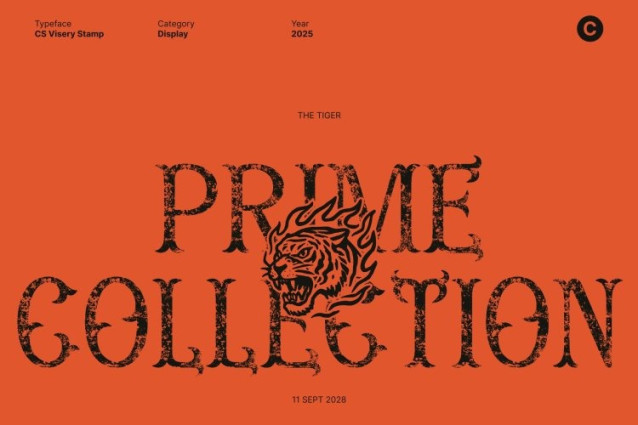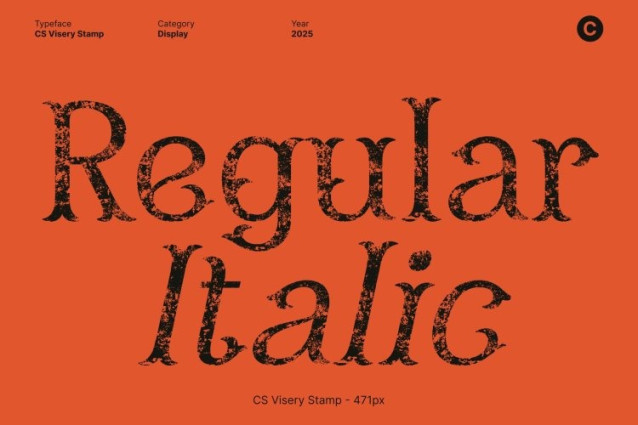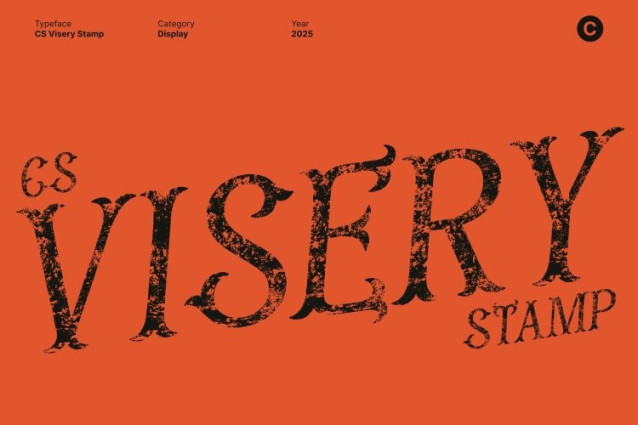
CS Visery Stamp Font
CS Visery Stamp Font This is a distinctive display serif font inspired by a rich blend of vintage Mexican design and classic Tuscan serif traditions. Its ornamental strokes, curved terminals, and decorative letterforms celebrate the intricate artistry found in traditional Mexican motifs.
Traditional Shapes with Decorative Flair
The core of this font lies in its expressive and detailed structure. Each character is crafted with ornamental curves and split-serif Tuscan forms that instantly convey a sense of craftsmanship. These decorative elements add warmth and personality, making the font perfect for display use where authenticity and cultural depth are essential.
Stamped Texture for a Raw, Vintage, and Dramatic Finish
Enhancing its cultural elegance is a bold stamp texture that introduces a weathered, distressed, and tactile look. This texture softens the clean lines, giving the font a rugged, handcrafted charm reminiscent of old print methods and traditional woodcut lettering. The stamped effect adds depth, drama, and realism, making the typeface feel aged, authentic, and richly atmospheric.
A Vintage Tuscan Serif with Soul, Culture, and Texture
This font offers more than visual beauty it brings history and emotion into your designs. The blend of traditional Mexican artistry and Tuscan serif sophistication, enriched by a dramatic stamped finish, makes this font a standout choice for expressive and culturally inspired creative work.